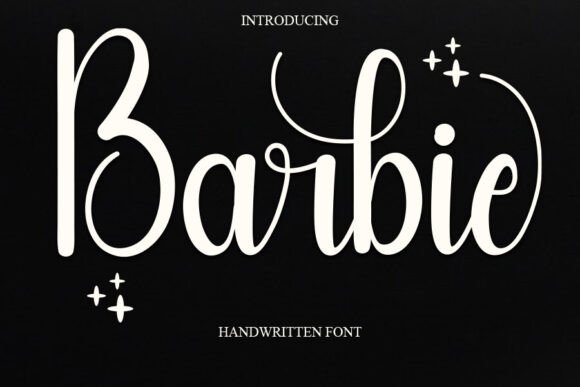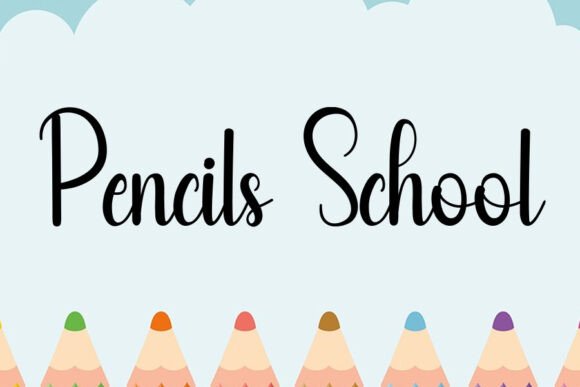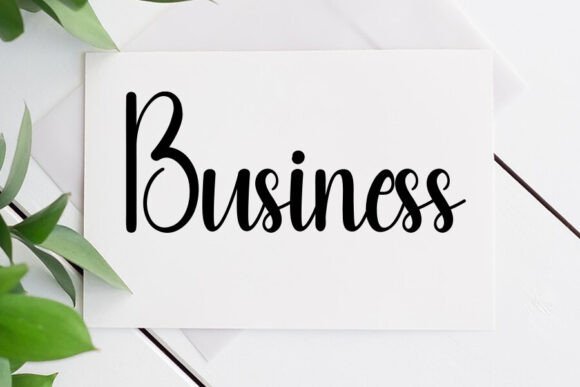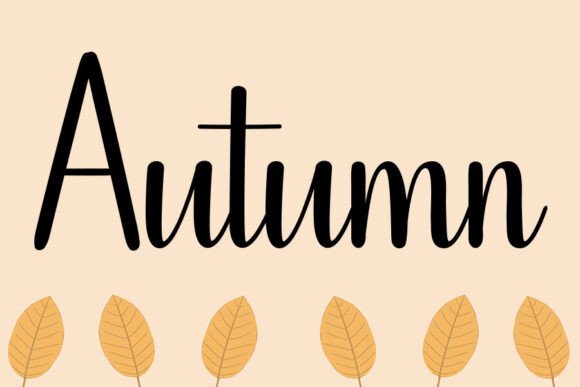
We are excited to introduce Barbie Font, a must-have typeface for any serious designer. Barbie is a sweet and cursive handwritten font. This gentle font will look gorgeous on a variety of design ideas. It will add a joyful and romantic touch to each of your projects! Perfectly fit for branding, logo, wedding things, greeting cards, fashion, lookbook, marketing promotion, and any time you want your design to look fancy and elegant but still casual.